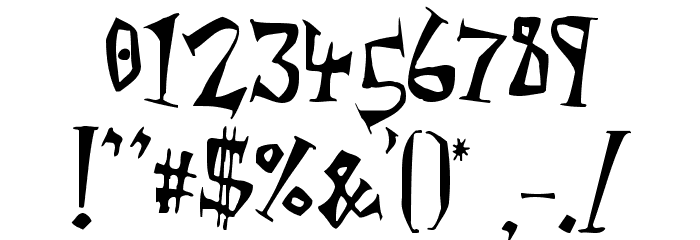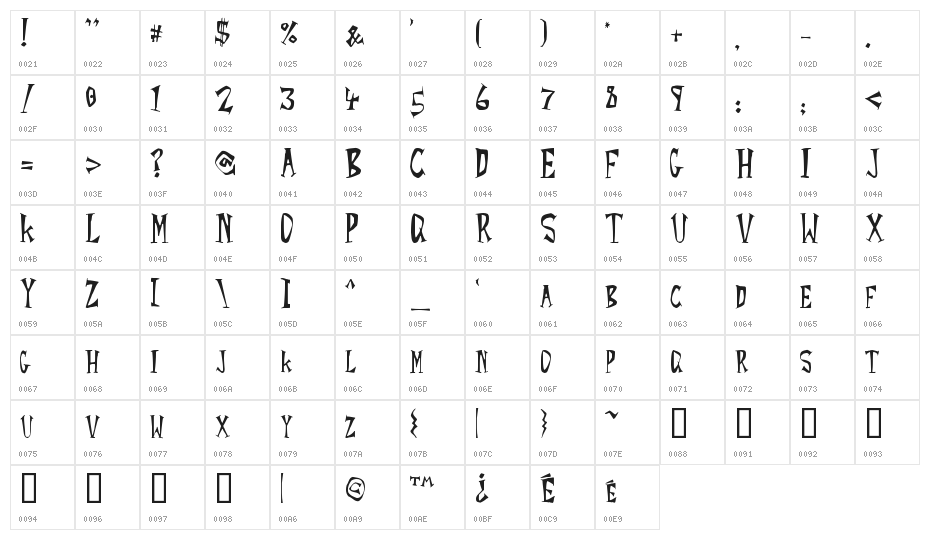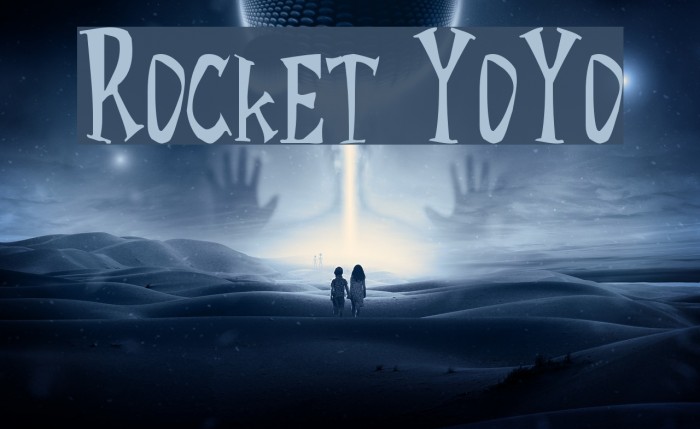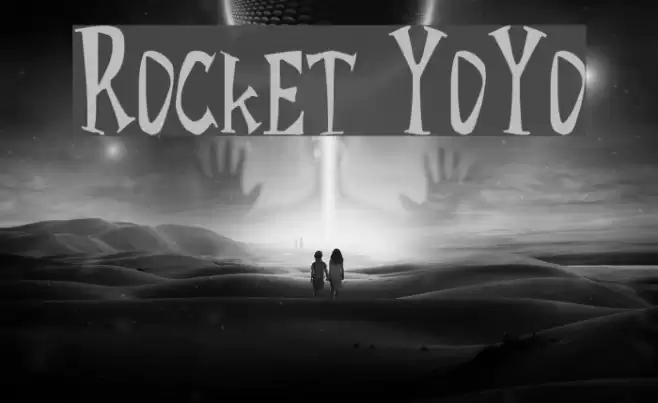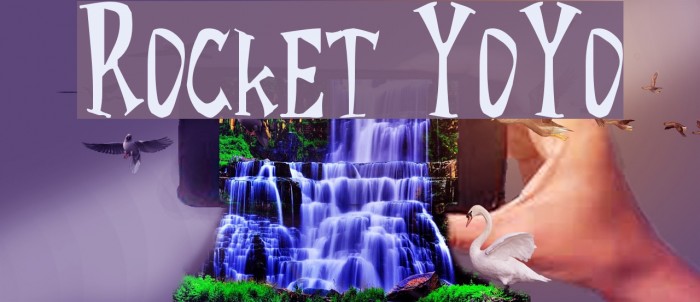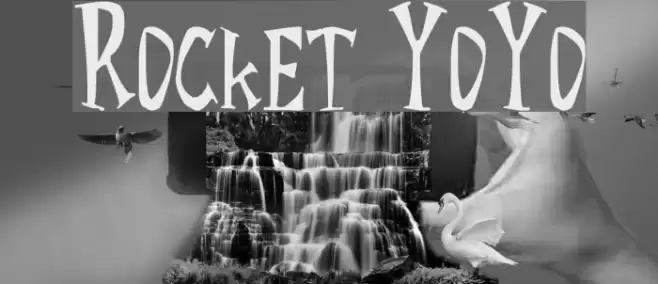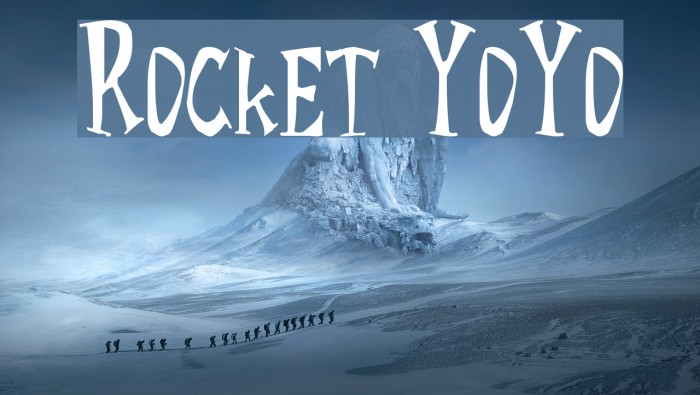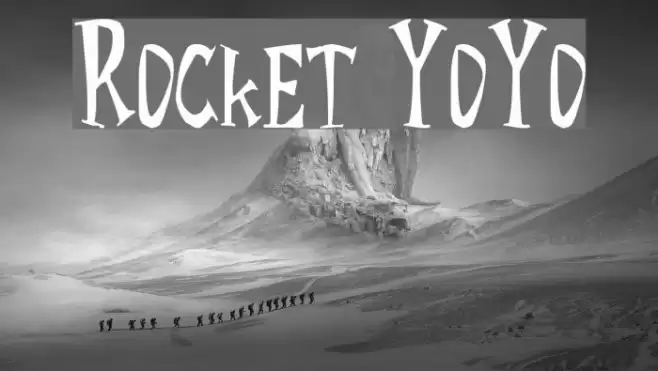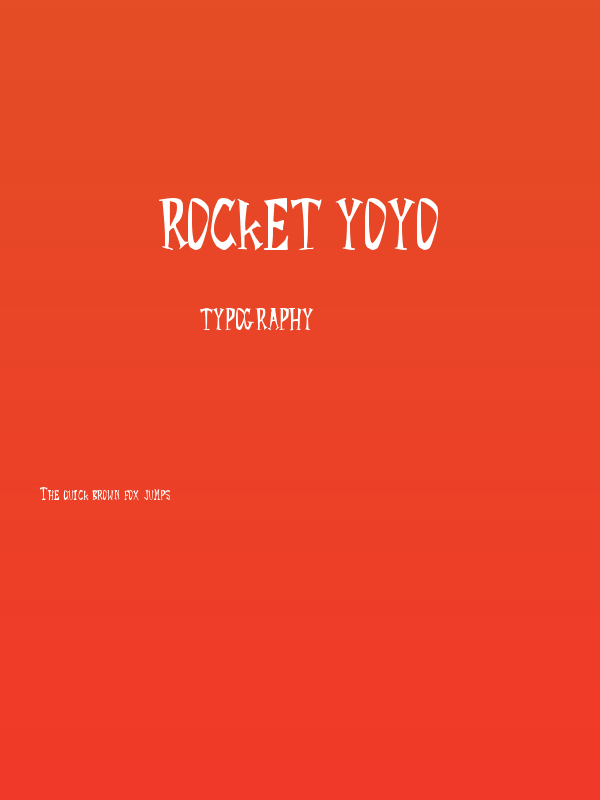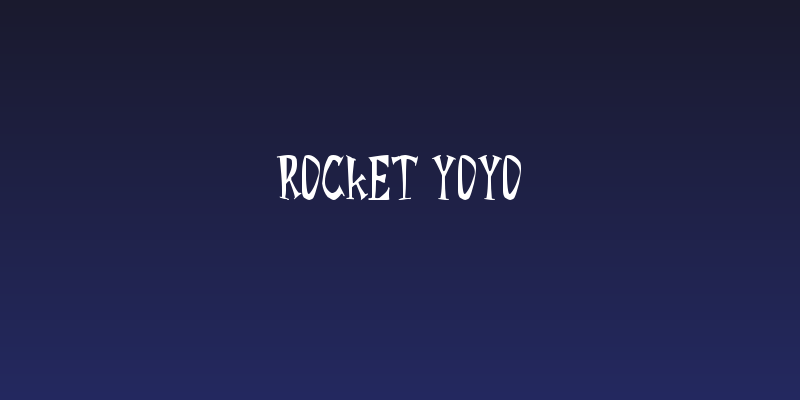
Rocket YoYo Font
Rocket YoYo Description
This font features a playful and dynamic design with a hand-drawn aesthetic. The characters are irregular and slightly distorted, giving them a whimsical and energetic feel. The strokes vary in thickness, adding to the font's lively appearance. The uppercase letters are bold and prominent, while the lowercase letters maintain the same quirky style. The numbers and special characters are consistent with the overall theme, making the font suitable for creative and informal projects. The unique style of this font makes it stand out, perfect for capturing attention in designs that require a fun and unconventional look.
| Proposed Projects | Ideal for children's books, comic strips, playful branding, and creative posters. |